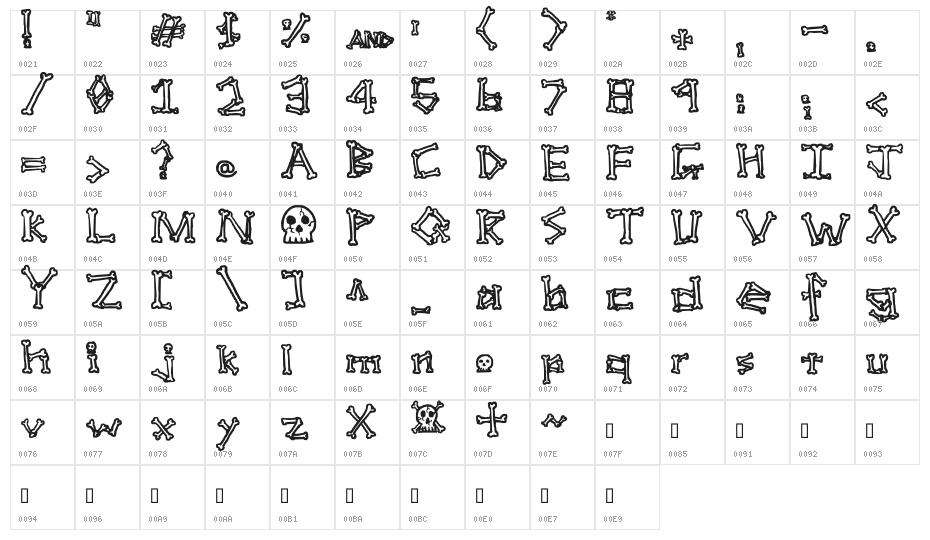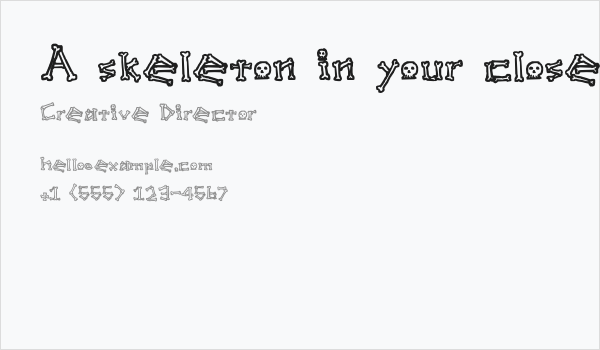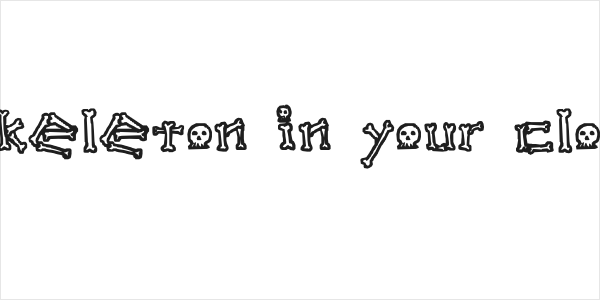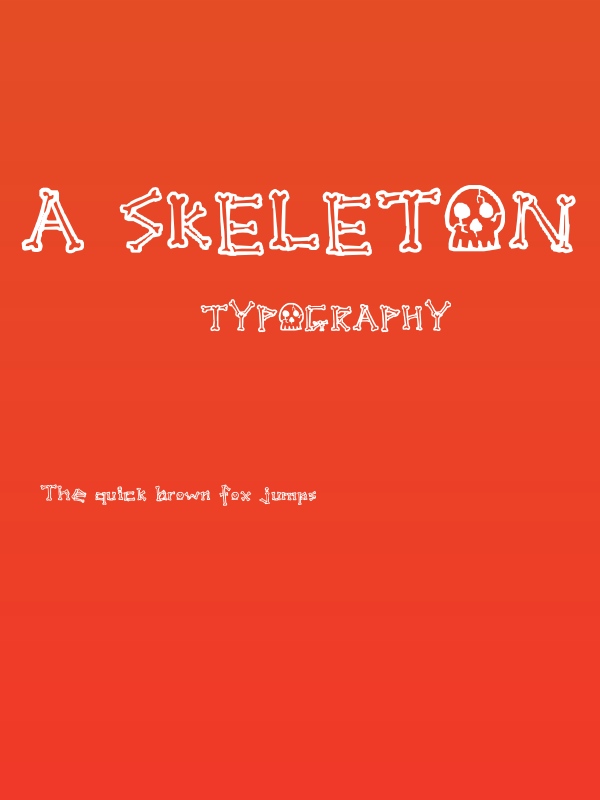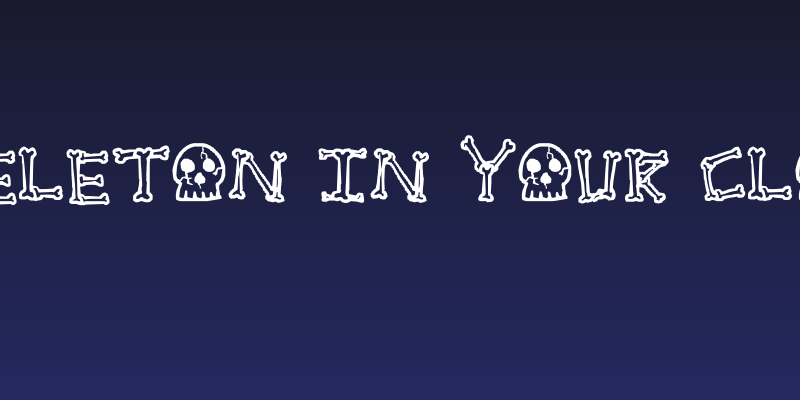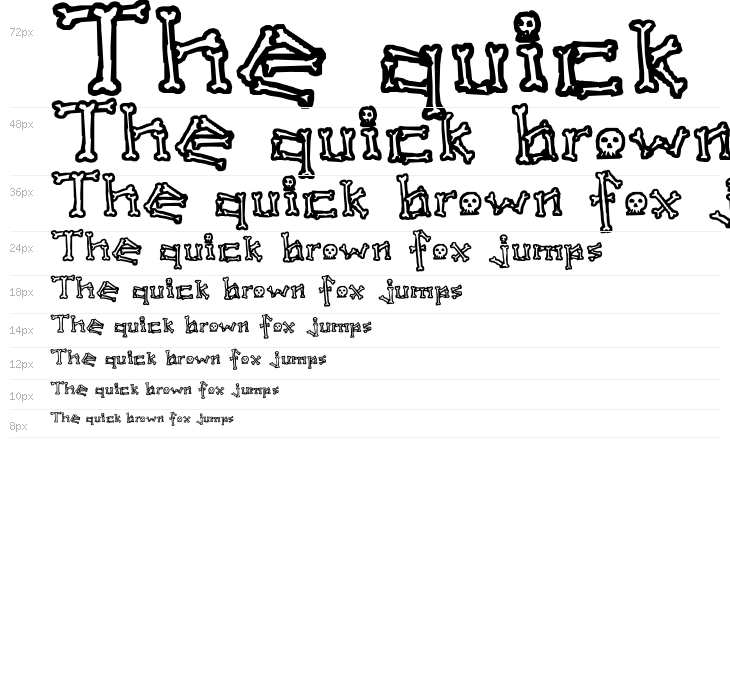
A skeleton in your closet Font
A skeleton in your closet Description
This font features a playful and spooky design, with each character crafted to resemble bones. The uppercase and lowercase letters, as well as numbers and special characters, maintain a consistent skeletal theme, adding a unique and eerie touch. The font's structure is decorative, with a slightly irregular and hand-drawn appearance that enhances its whimsical and Halloween-inspired style. The characters are bold and have a medium contrast, with varying thickness in the strokes that mimic the natural irregularities of bones. This font is perfect for projects that require a fun yet creepy aesthetic, such as Halloween invitations, themed posters, or creative branding.
| Proposed Projects | Ideal for Halloween invitations, themed posters, party decorations, and creative branding. |